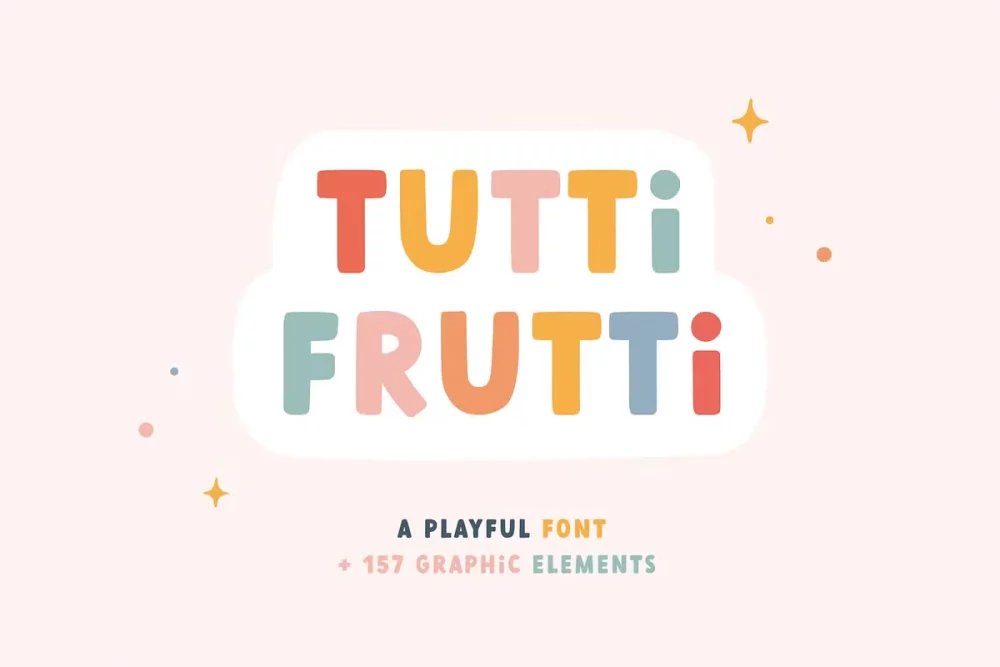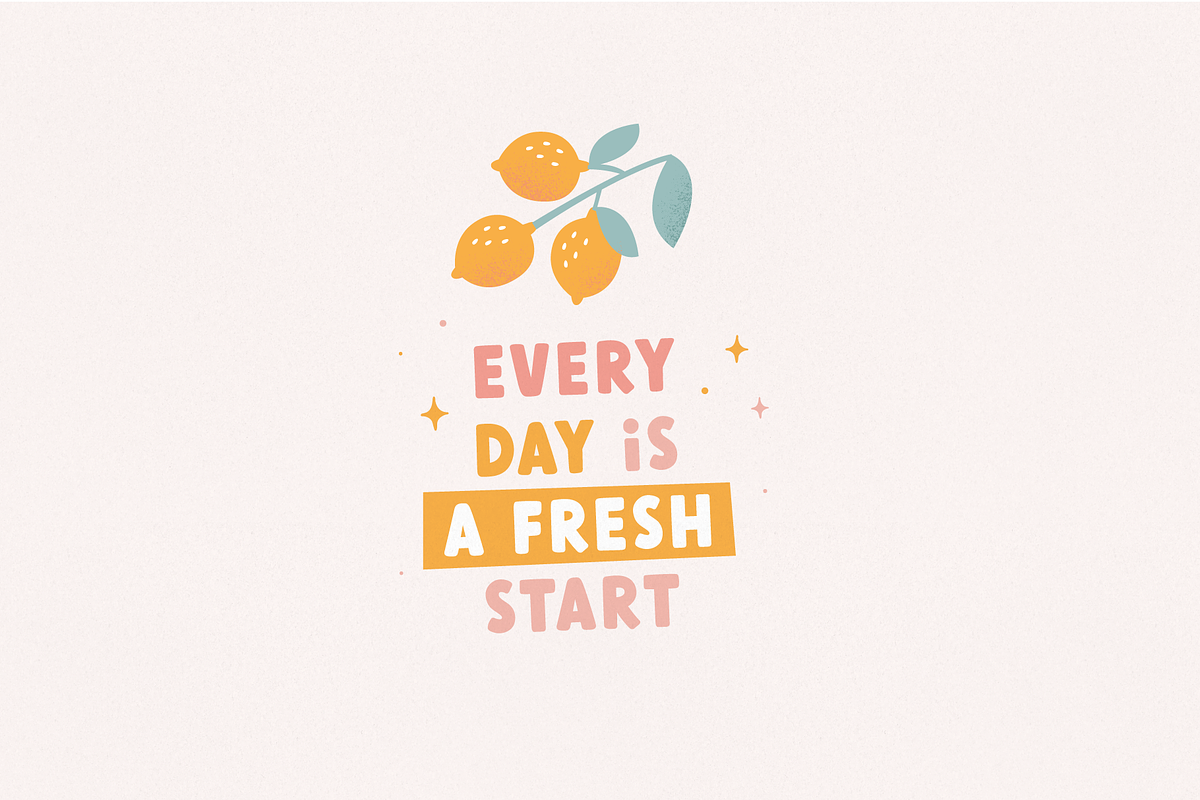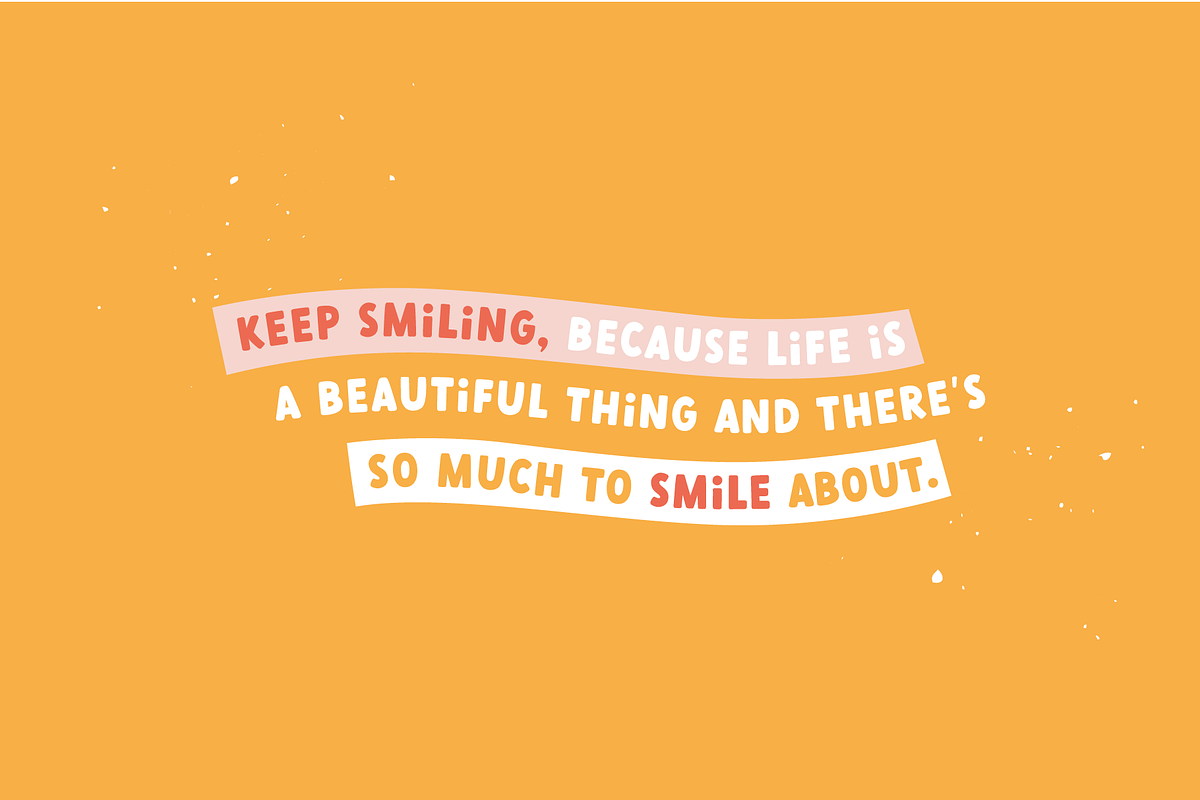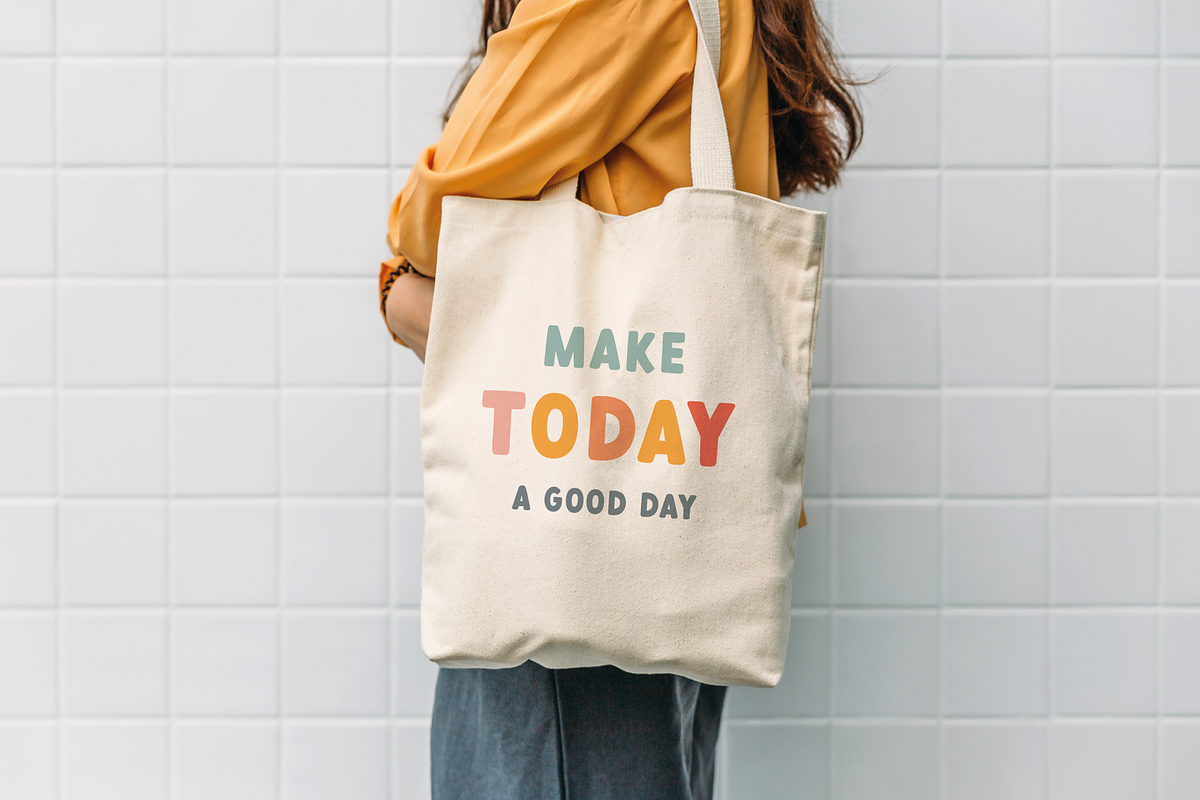
Tutti Frutti Font
Tutti Frutti is a super fun and playful hand-lettered bold typeface. It is perfect for headings, flyers, greeting cards, product packaging, book covers, printed quotes, logotypes, apparel designs, album covers, etc.
Tutti Frutti Playful Font